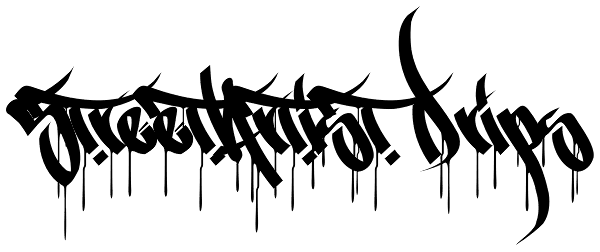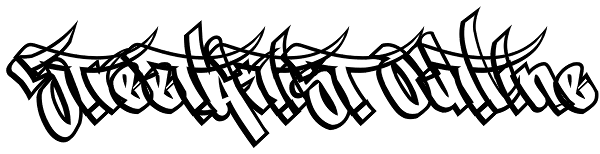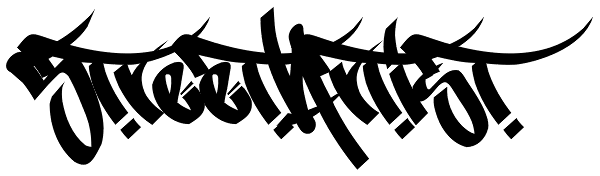
StreetArtist
This tag font includes full alphabets of uppercase & lowercase letters giving 2 distinct looks as well as interesting substitutions. Street Artist is clean and consistent without sacrificing style. With the StreetArtist font family anyone can easily...
StreetArtist Drips
StreetArtist Outline
StreetArtist
StreetArtist Streaks